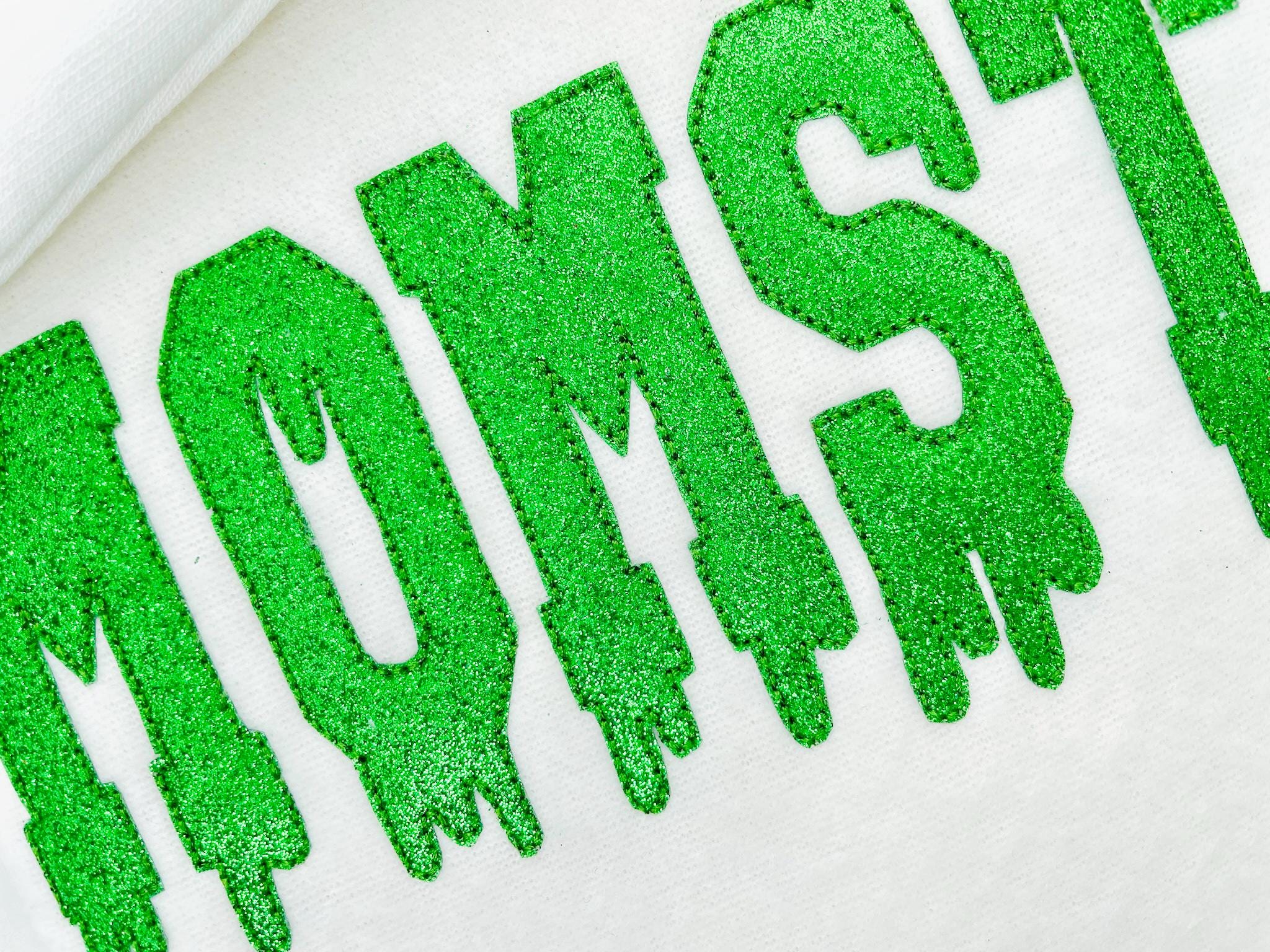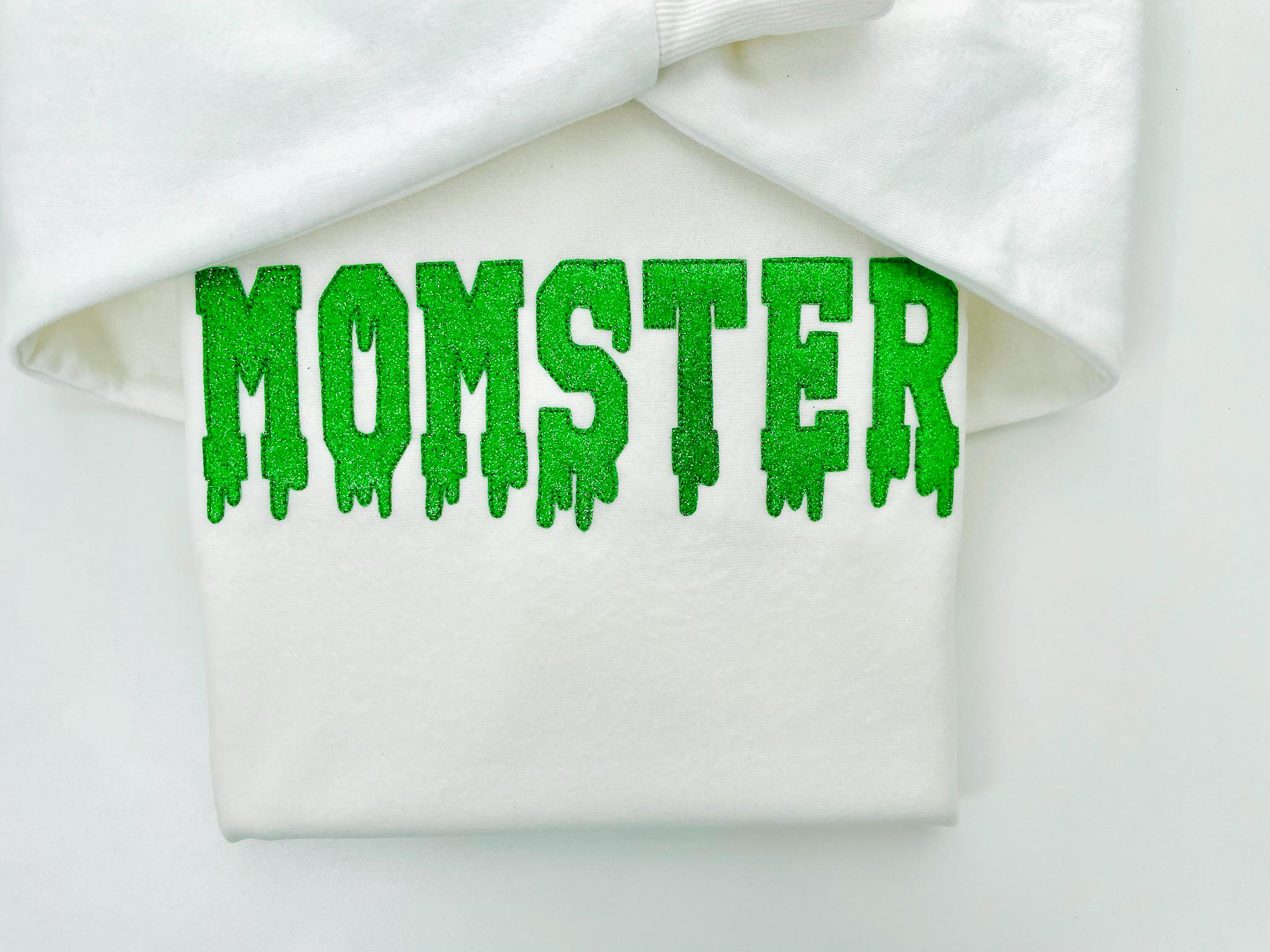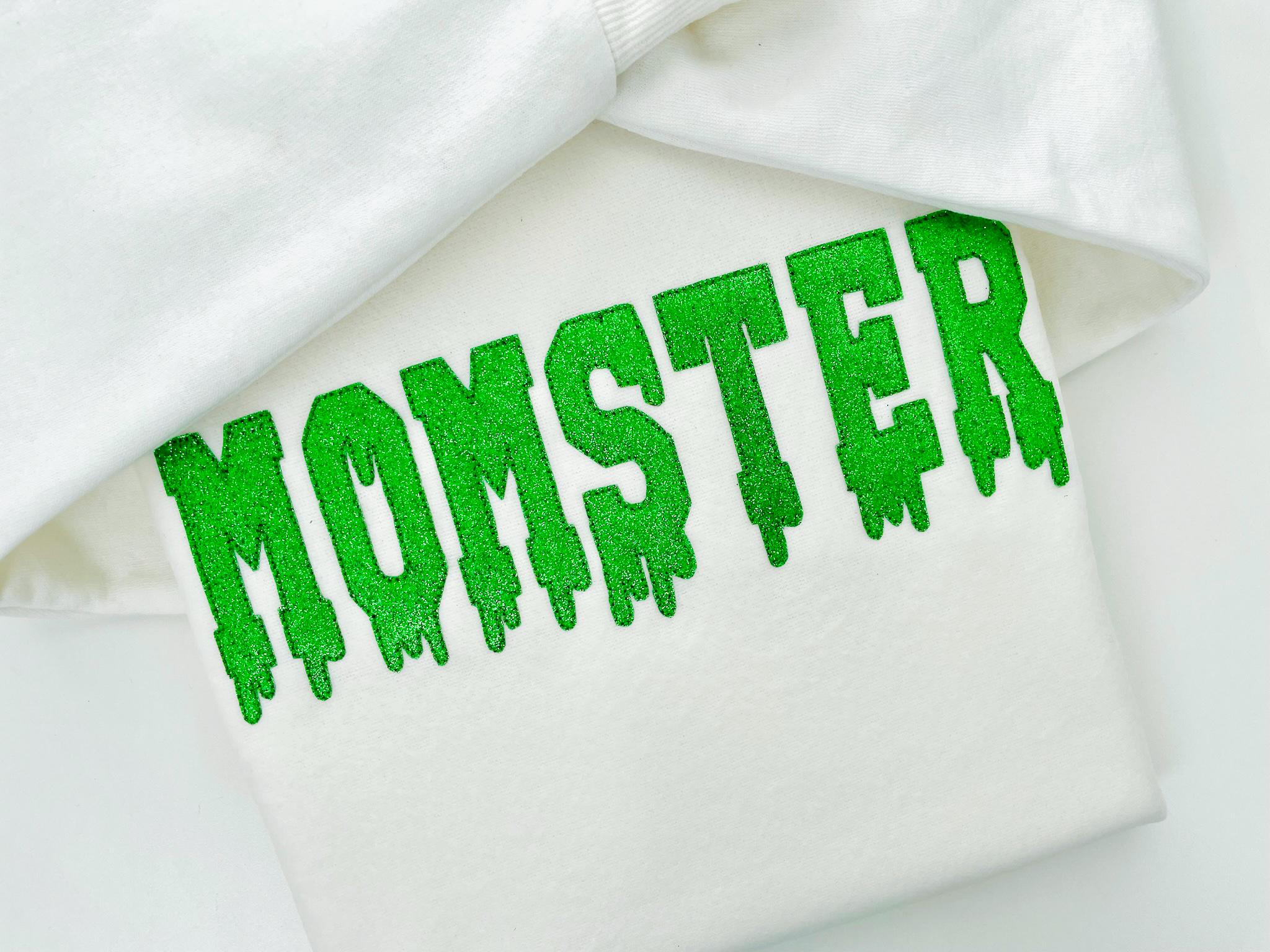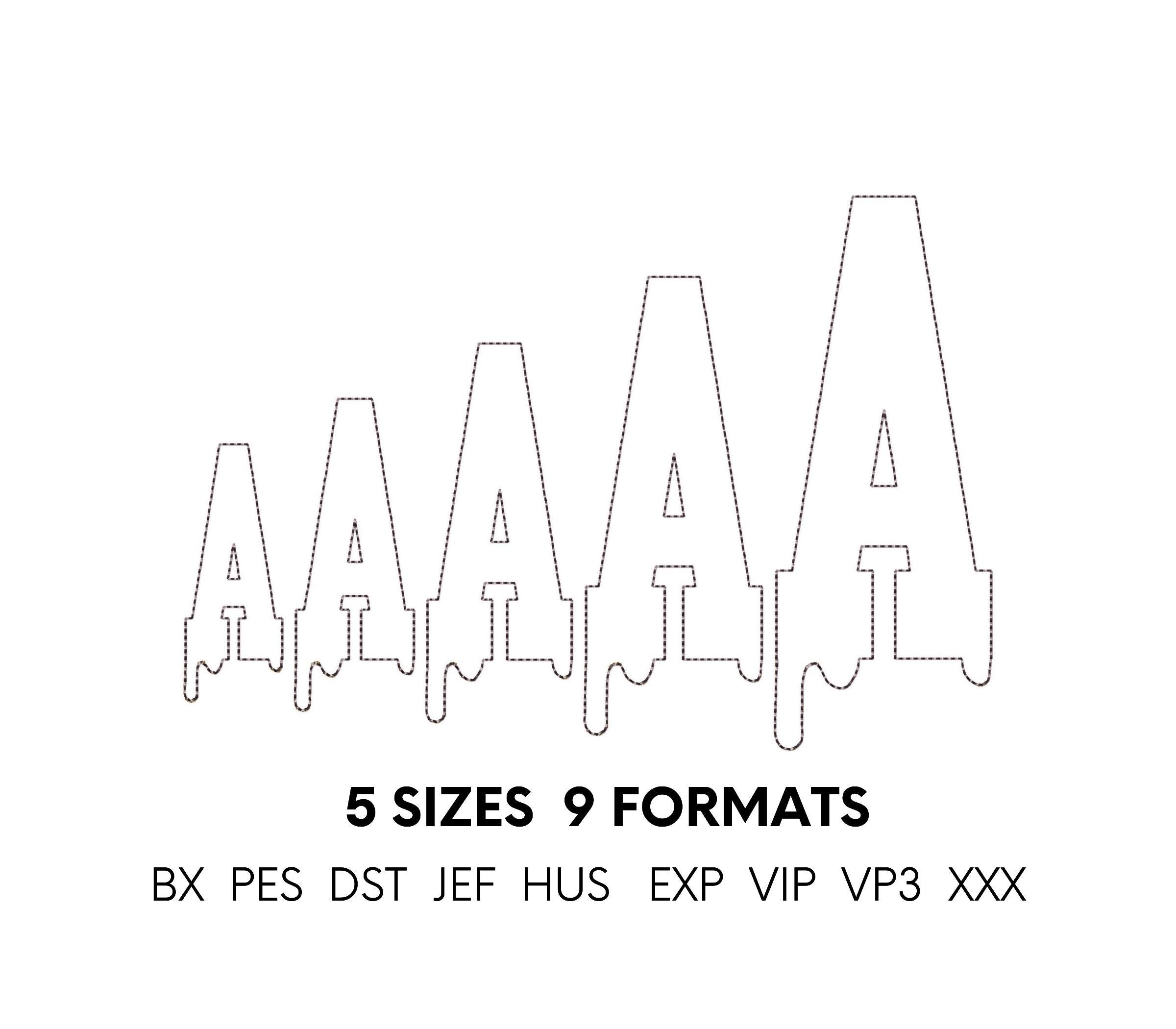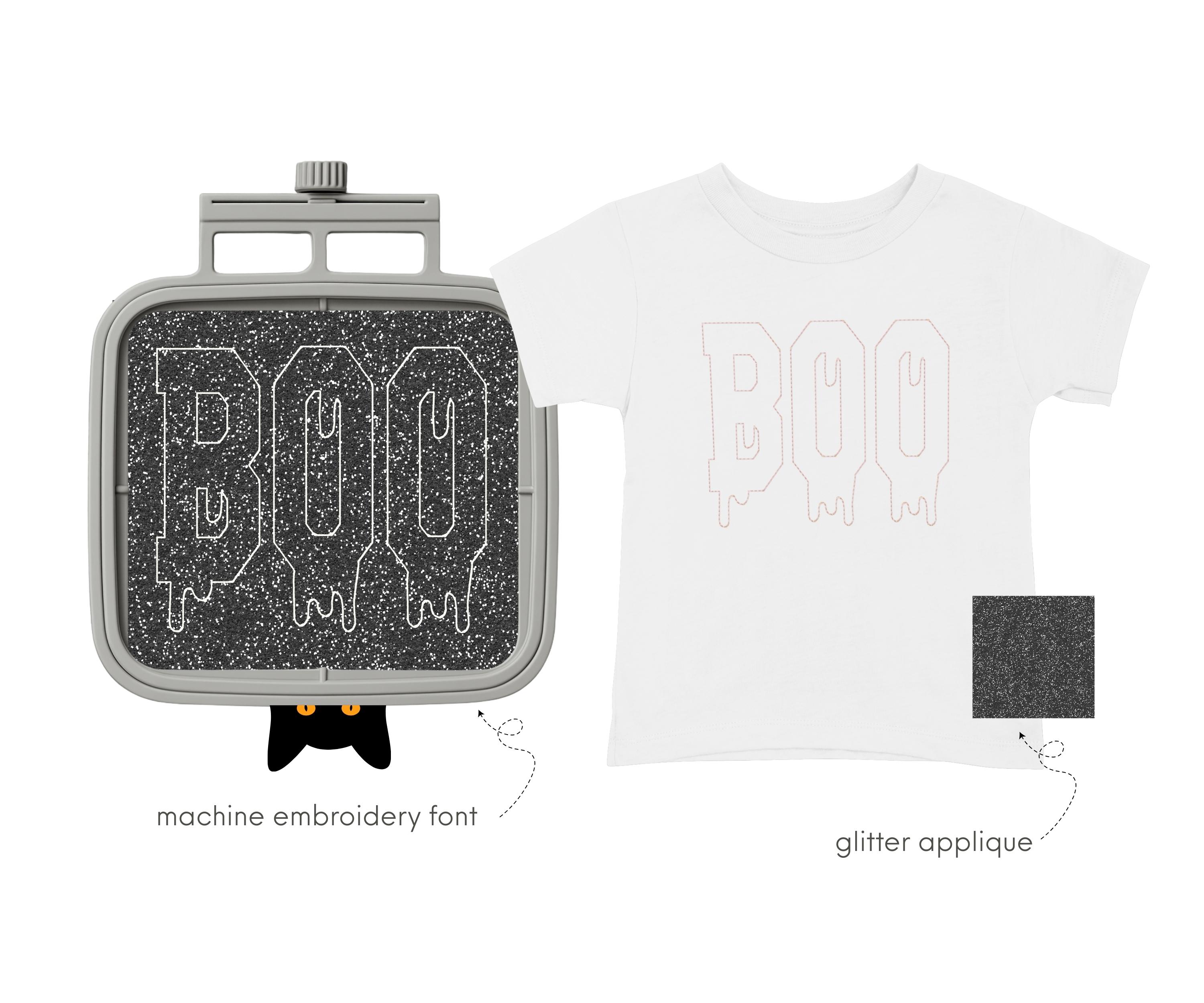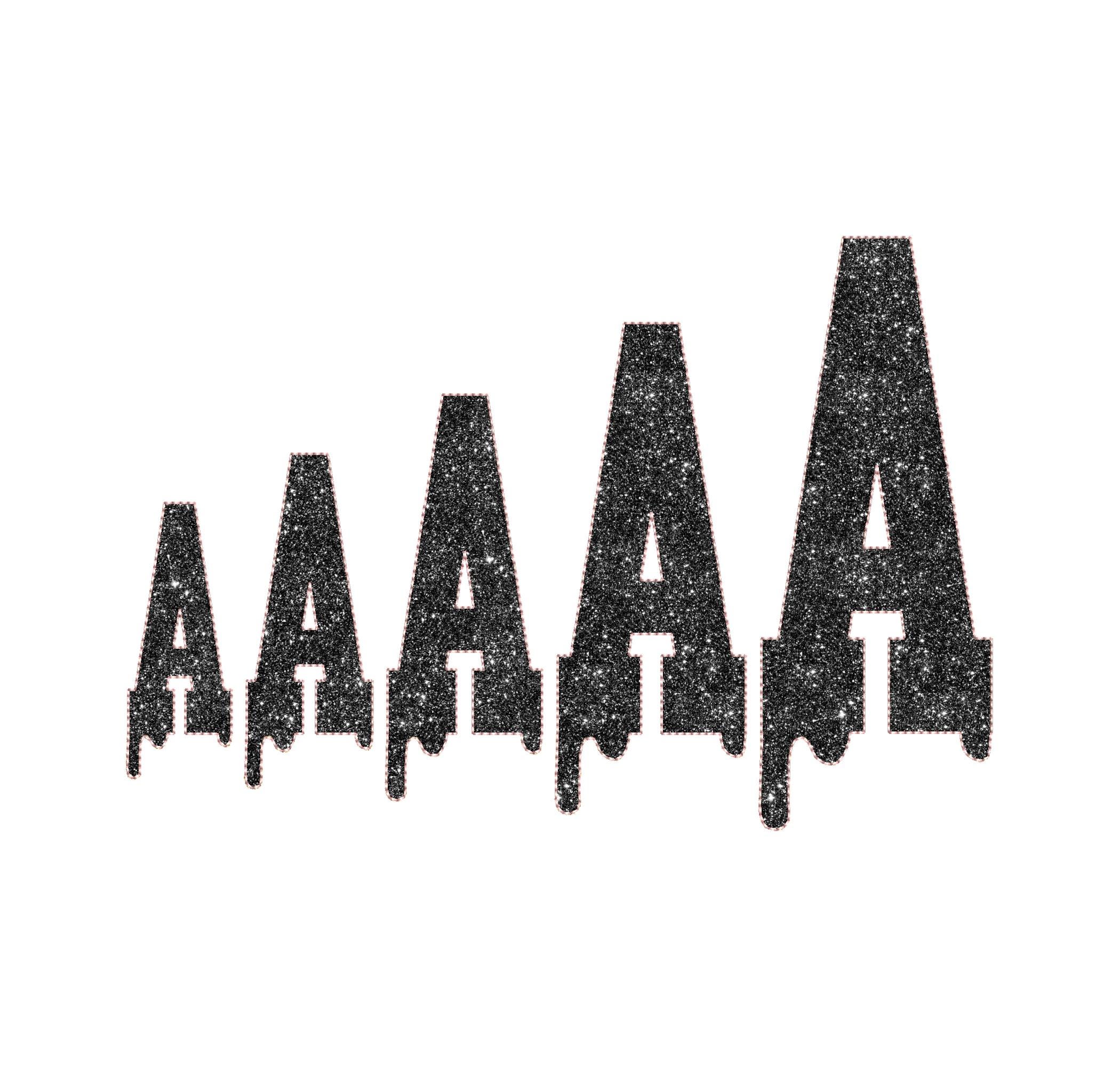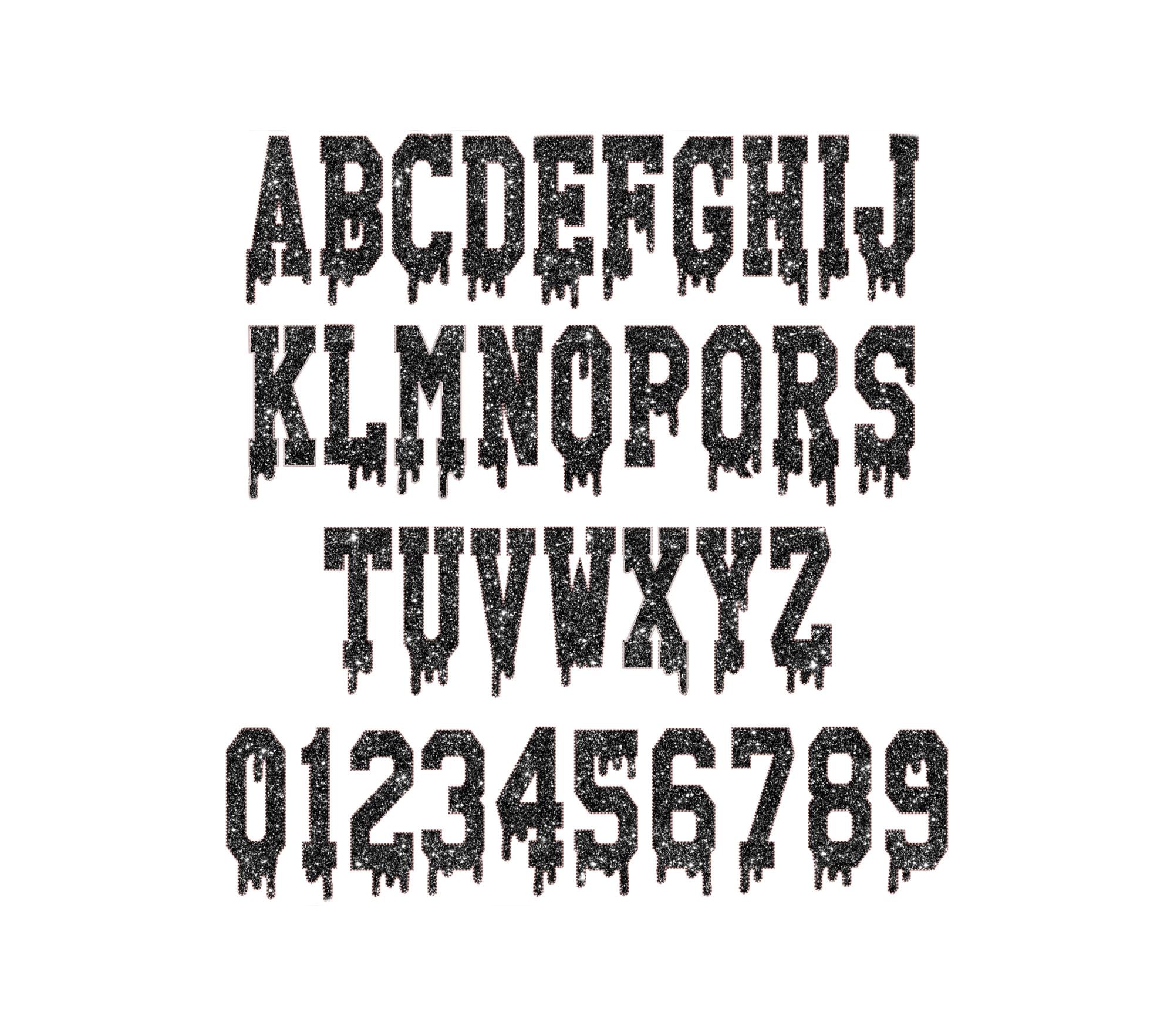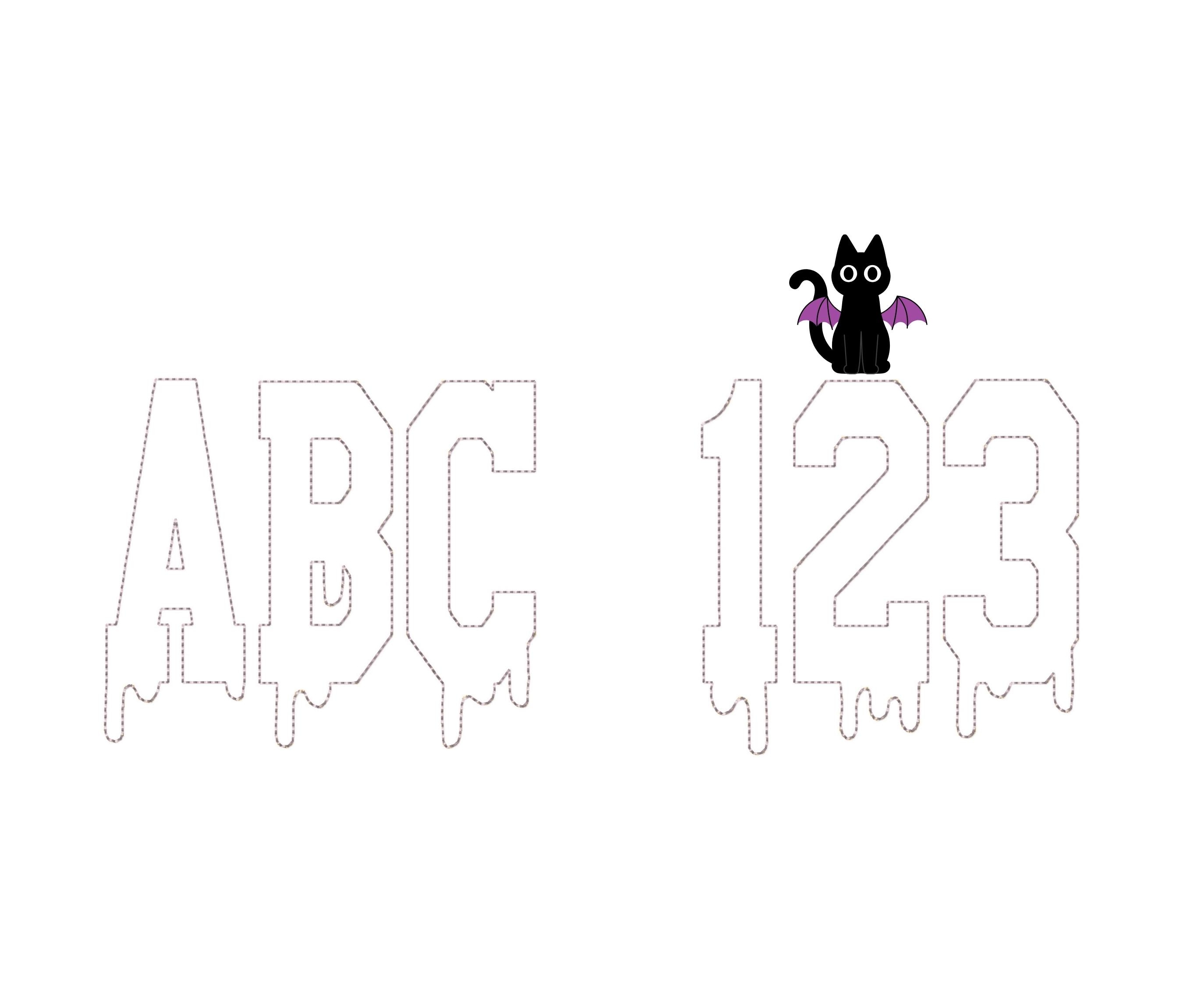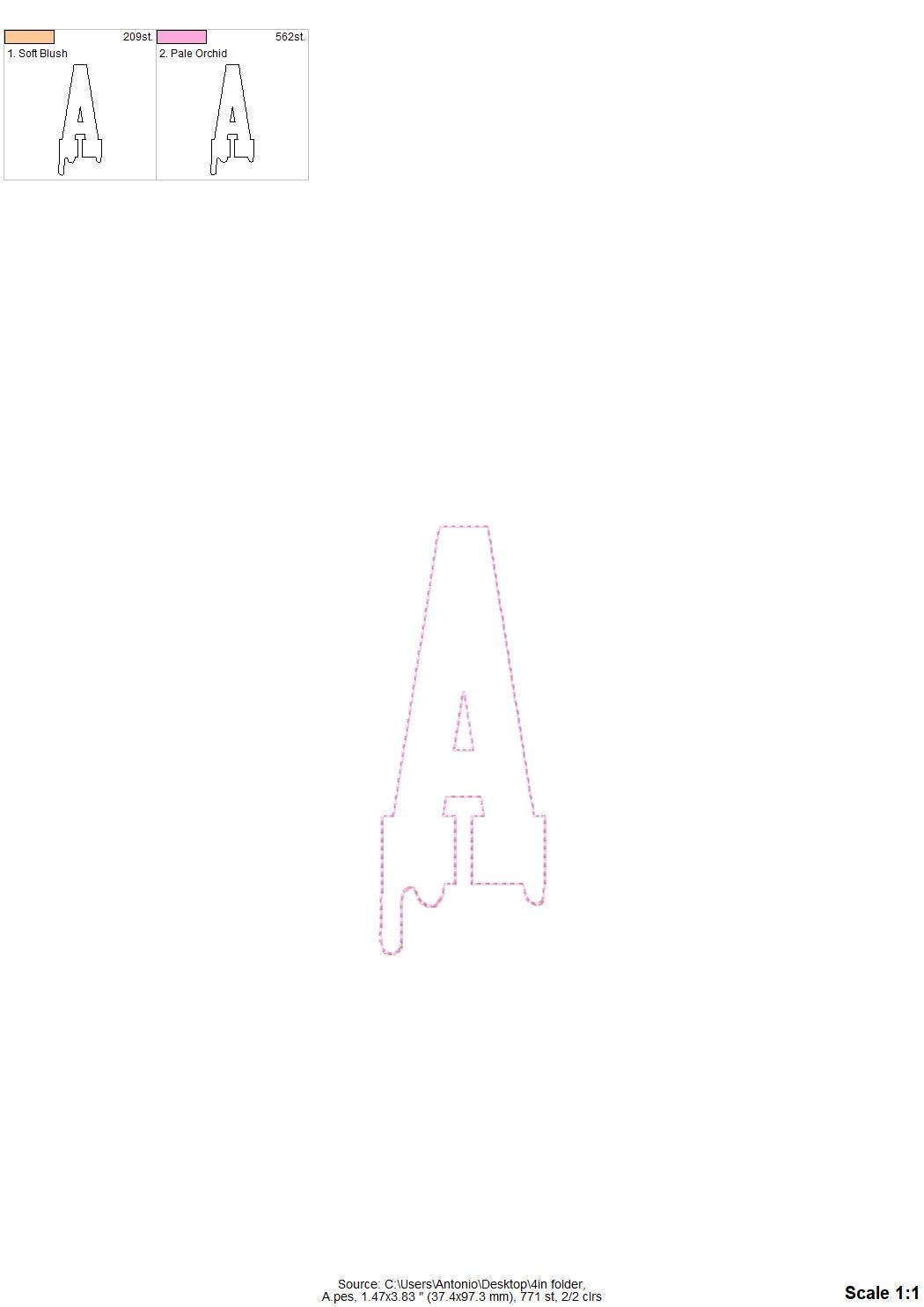
Halloween Melted Varsity block Font glitter HTV vinyl applique Melting Alphabet Monogram machine embroidery designs sizes 2.8 up to 6 inch
Use glitter HTV vinyl for this font. Easy and quick! Stunning effect!